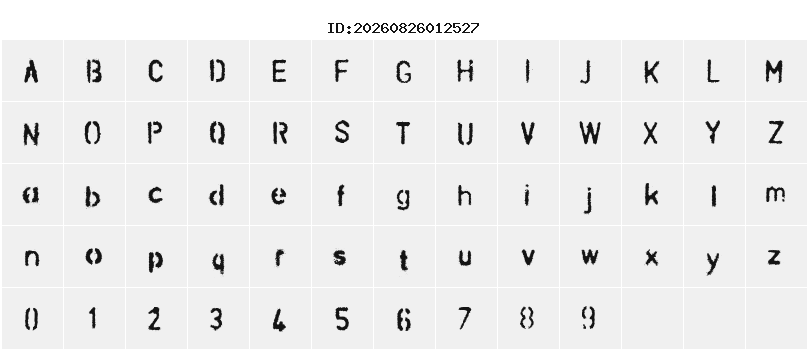
SCHABLONA DIRT Preview
• Font Name: SCHABLONA DIRT
• Full Font Name: SCHABLONA DIRT
• PostScript Name: SCHABLONADIRT
About SCHABLONA DIRT.ttf
SCHABLONA DIRT.ttf is a modern, elegant sans-serif font designed for ultimate readability and visual harmony. Perfect for branding, headlines, web design, and print materials.